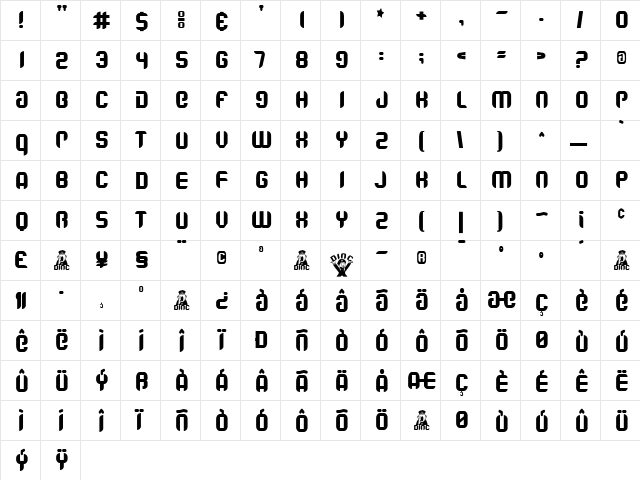
Dixie Regular
Design Context for Dixie Typeface
Dixie takes a measured approach to typography — its balanced proportions and neutral character make it a reliable workhorse for both digital and print work.